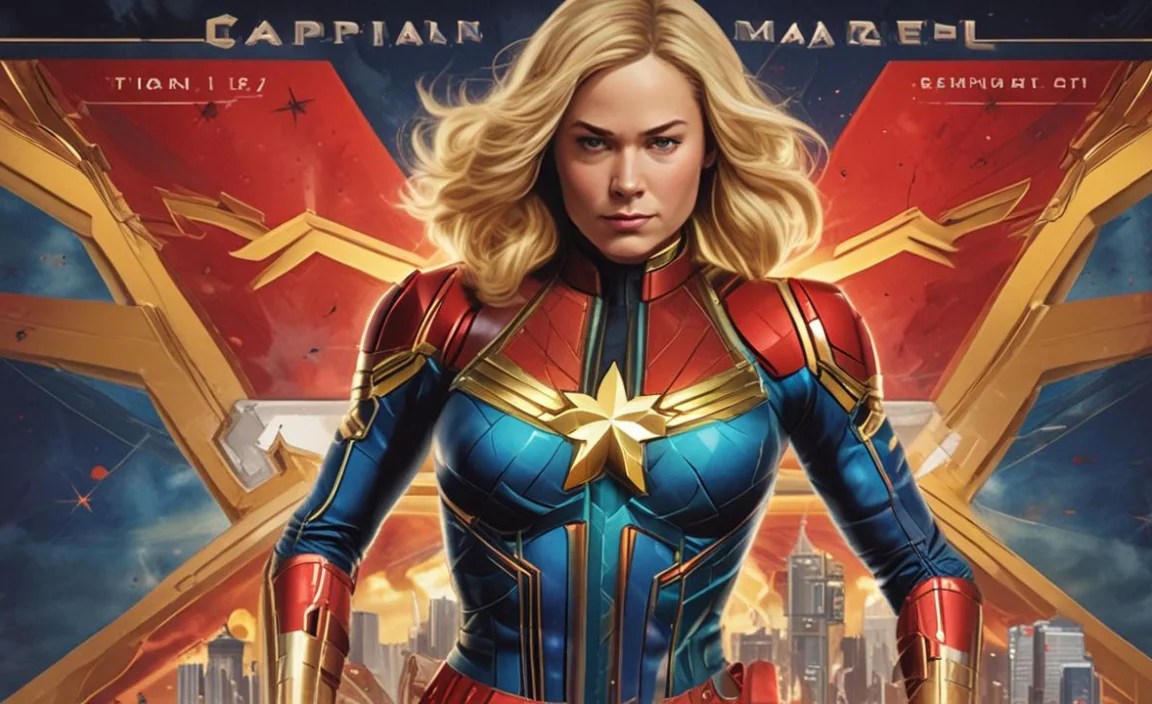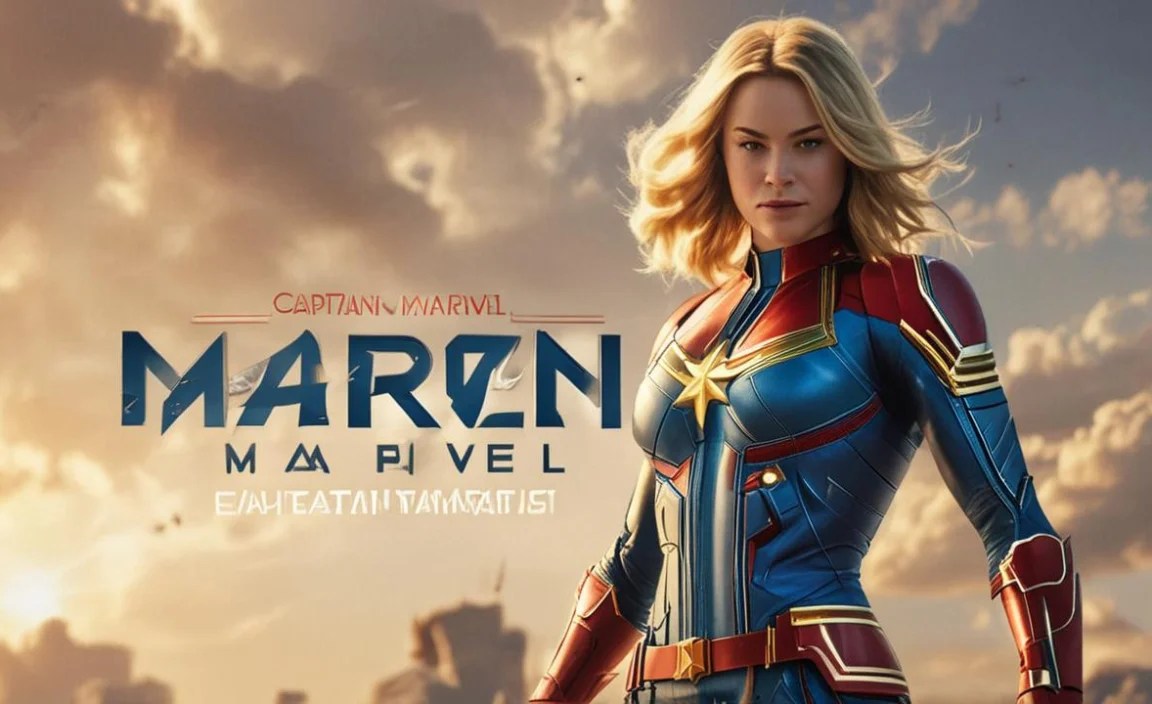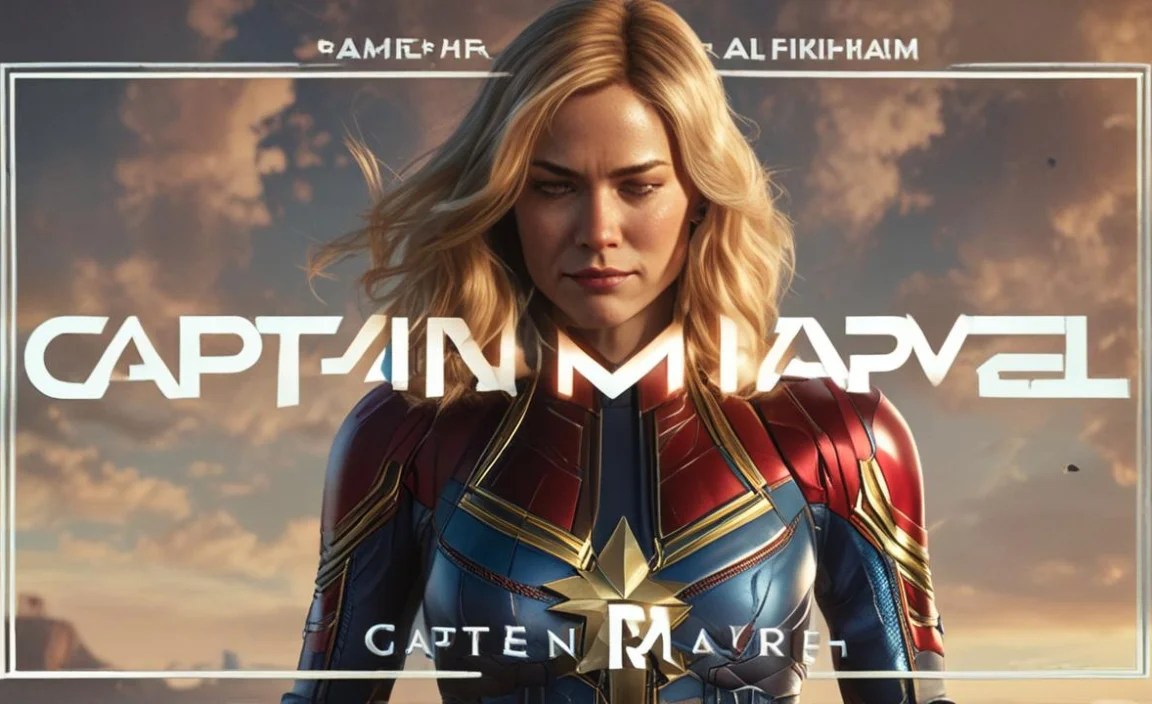
The Captain Marvel Font is inspired by the iconic superhero logo from Marvel Comics. This font captures the essence of the superhero’s identity, featuring a geometric and impactful design.
The font closely resembles the style used in the comic book covers and promotional materials of Captain Marvel. It’s perfect for creating bold, dynamic, and eye-catching designs that reflect the strength and heroism associated with the character.
Captain Marvel Font Information
| Name | Captain Marvel Font |
| Style | Display |
| Designer | Similar to Ray Larabie’s Strasua |
| Type | Decorative |
The Captain Marvel Font is ideal for various applications that aim to capture the bold and heroic essence of the Marvel Comics universe. It’s highly suited for use in:
- Movie posters
- Film credits
- Merchandise packaging
- Comic book covers
- Marketing materials
- Social media graphics
- Fan-made content
The Captain Marvel font’s distinctive style can limit its versatility, making it less suitable for formal or non-superhero contexts. Its bold and stylized design may not always align with different branding or design needs outside of comic or superhero themes.
Compared to other superhero fonts, the Captain Marvel font is characterized by its bold, dynamic design with strong angular shapes and striking colors. It stands out with its unique flair, while other superhero fonts might feature different stylistic elements or thematic influences.
The Captain Marvel font reinforces the brand’s heroic and energetic identity, contributing to a strong, recognizable visual presence. It helps convey the character’s adventurous spirit and aligns with the brand’s comic book and pop culture image.